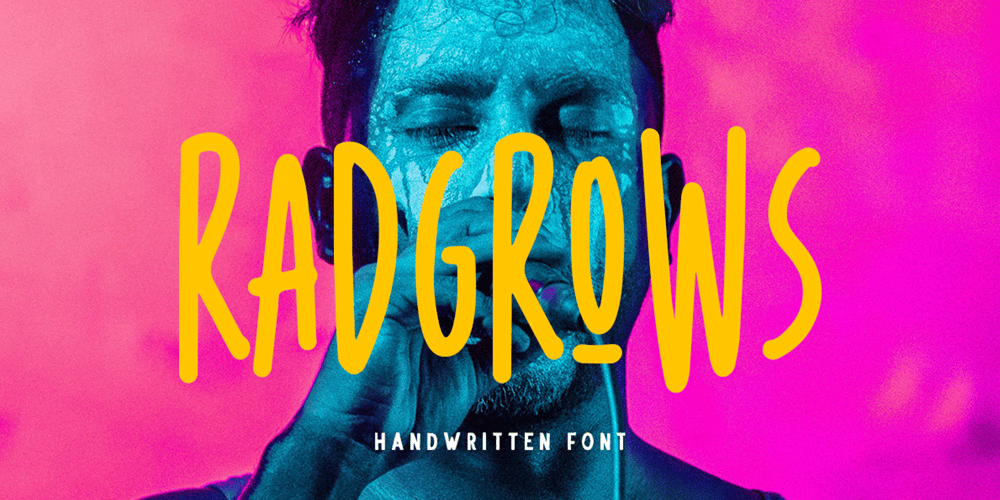
Radgrows Font Family was designed by Hendry Juanda and published by Letterhend. Radgrows contains 1 styles and family package options. Radgrows is a casual and playful font with ligatures! This font works perfectly for anyone who needs a font for headlines, logotype, apparel, invitations, branding, packaging, advertising, and more. This typeface includes uppercase, lowercase, punctuation, symbols, numerals, ligatures, multi-lingual support.